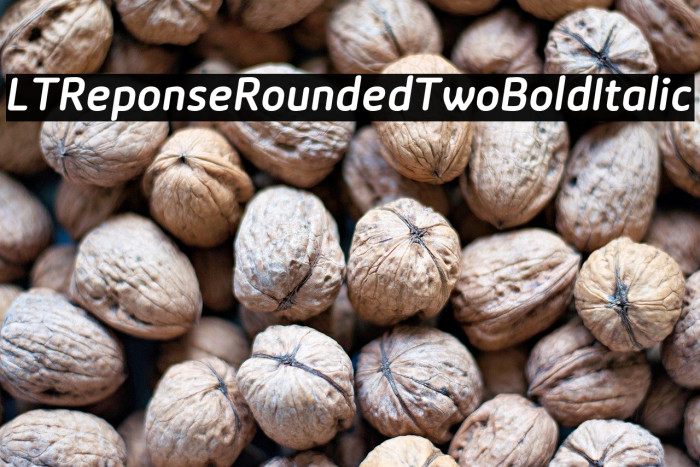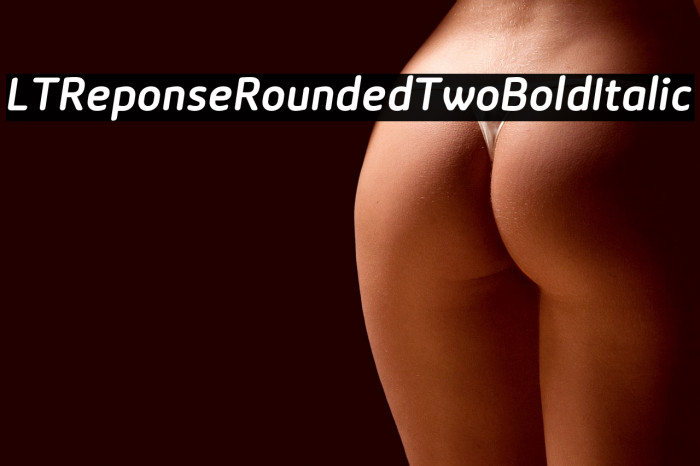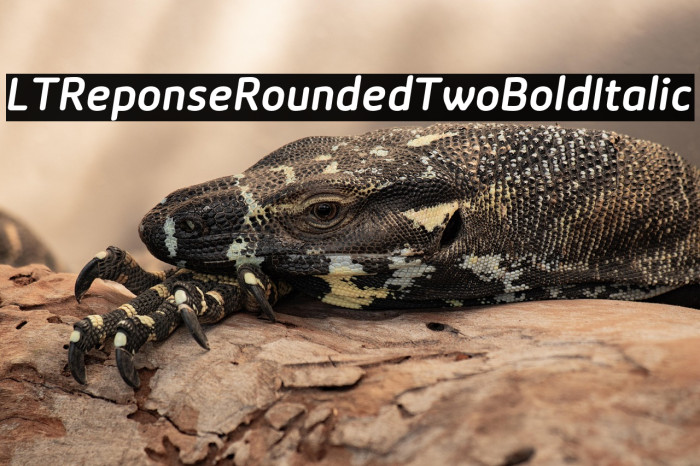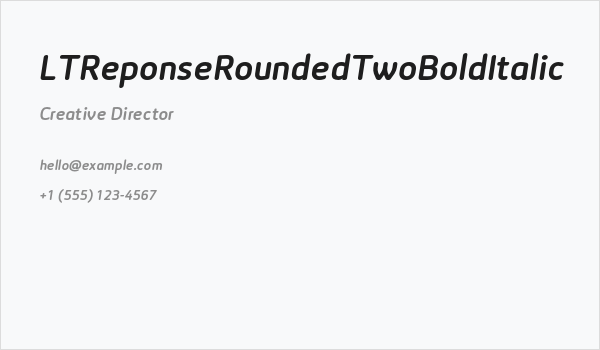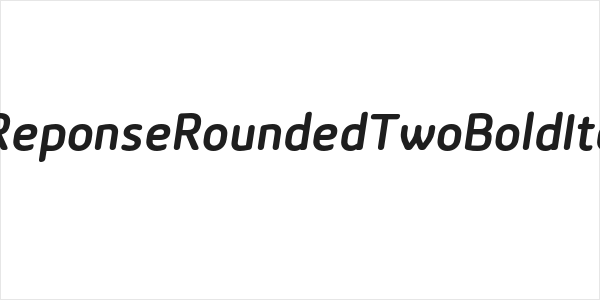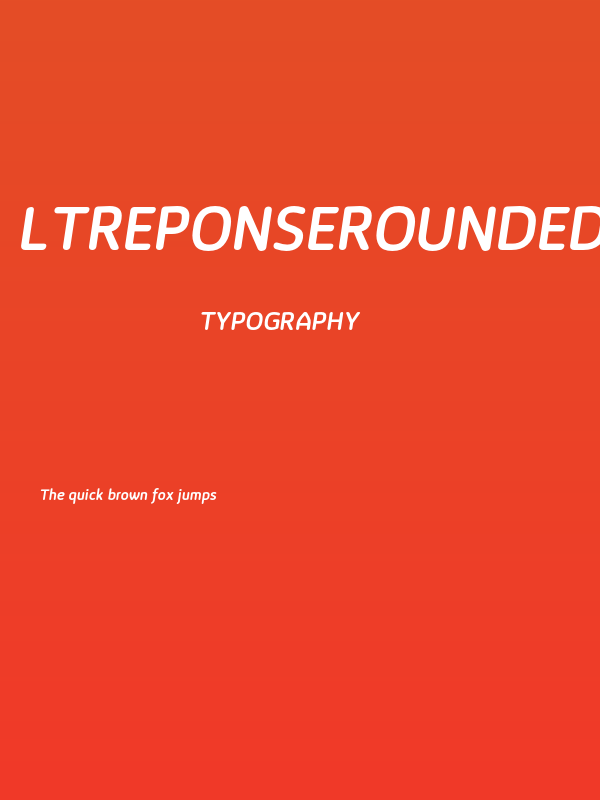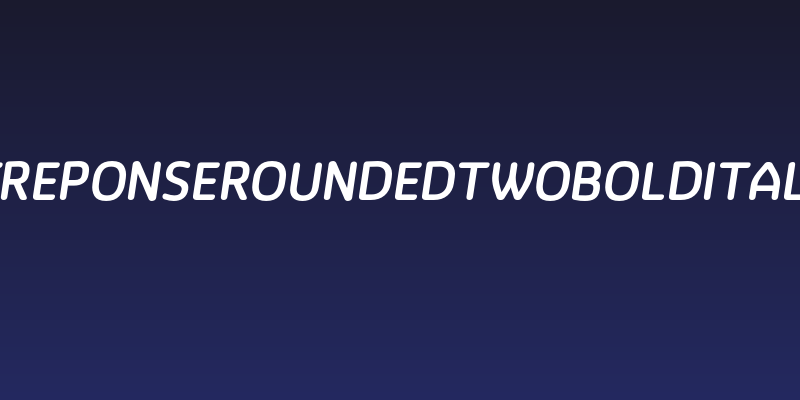
LTReponseRoundedTwoBoldItalic Font
LTReponseRoundedTwoBoldItalic Description
This font features a smooth, rounded style with a bold and italicized appearance, giving it a modern and approachable look. The characters are evenly spaced, providing a clean and organized presentation. The rounded edges soften the overall aesthetic, making it suitable for friendly and informal contexts. The bold weight ensures that the text stands out, while the italic slant adds a dynamic and energetic feel. This combination of characteristics makes it versatile for various design applications.
| Proposed Projects | Ideal for branding, advertising, and packaging design where a friendly and modern look is desired. Suitable for digital interfaces, children's books, and casual print materials. |